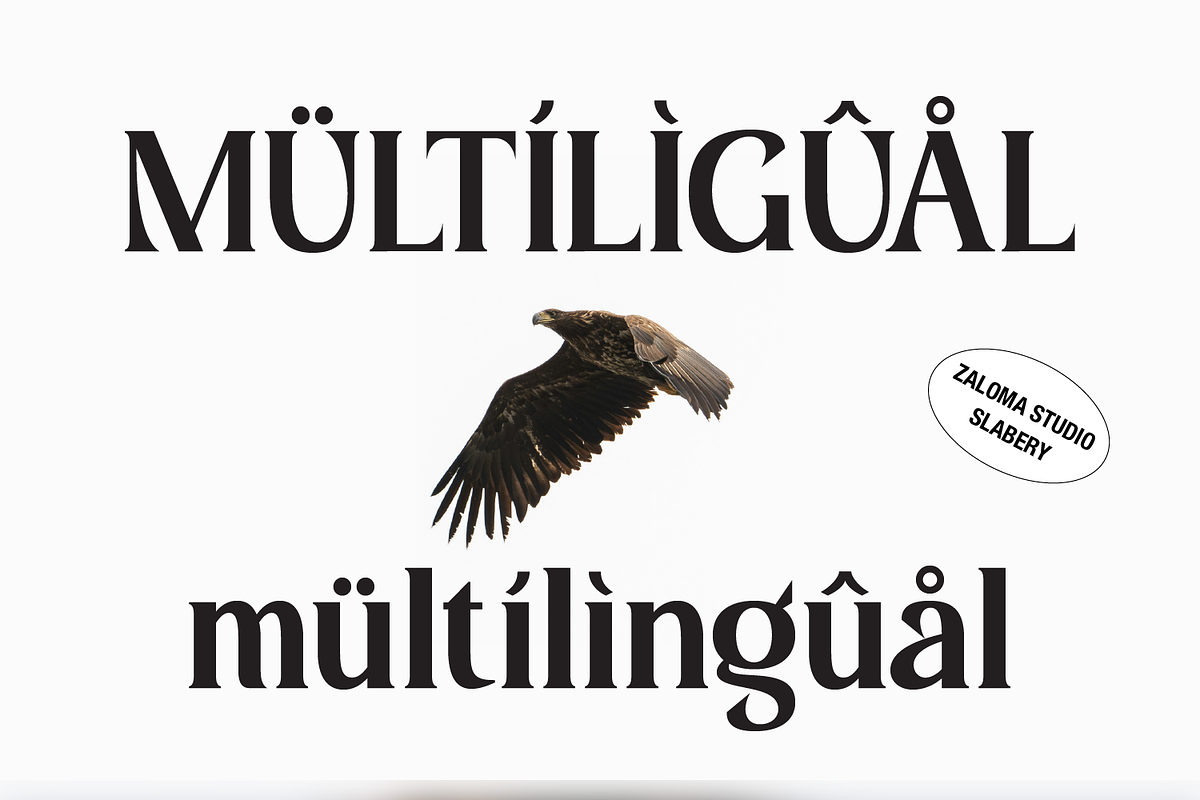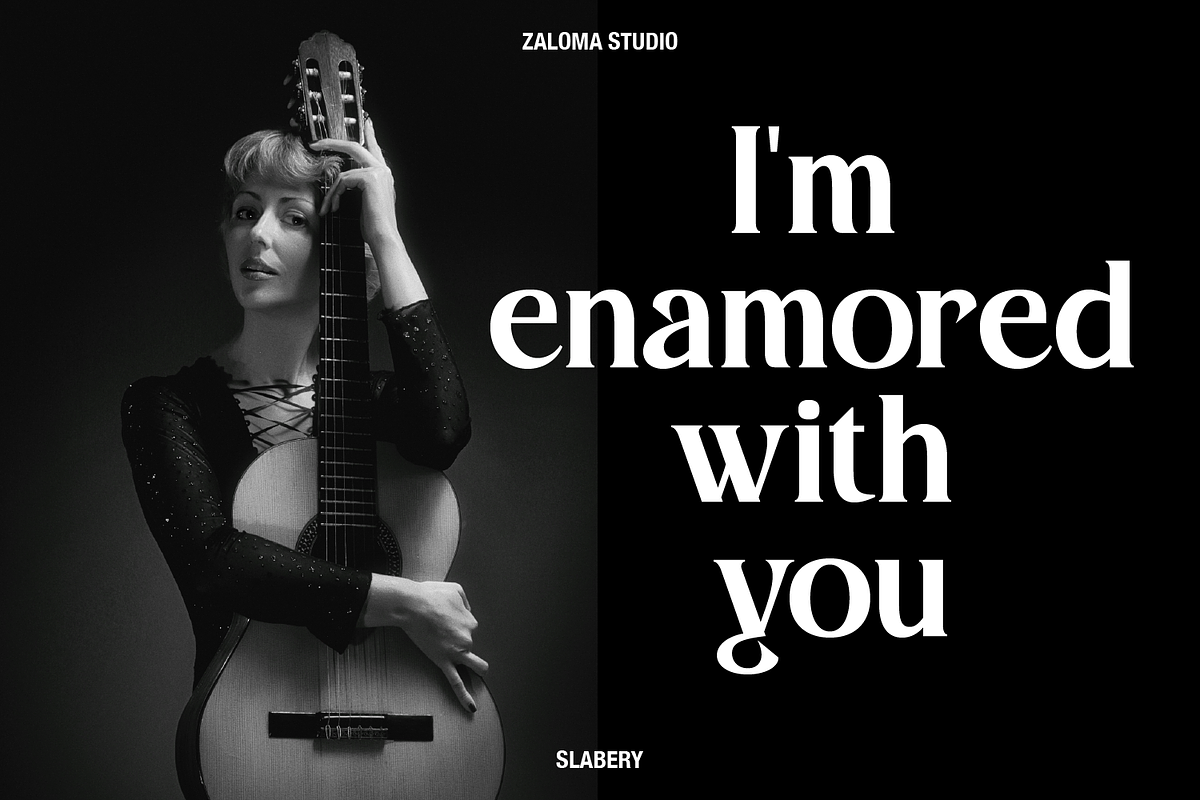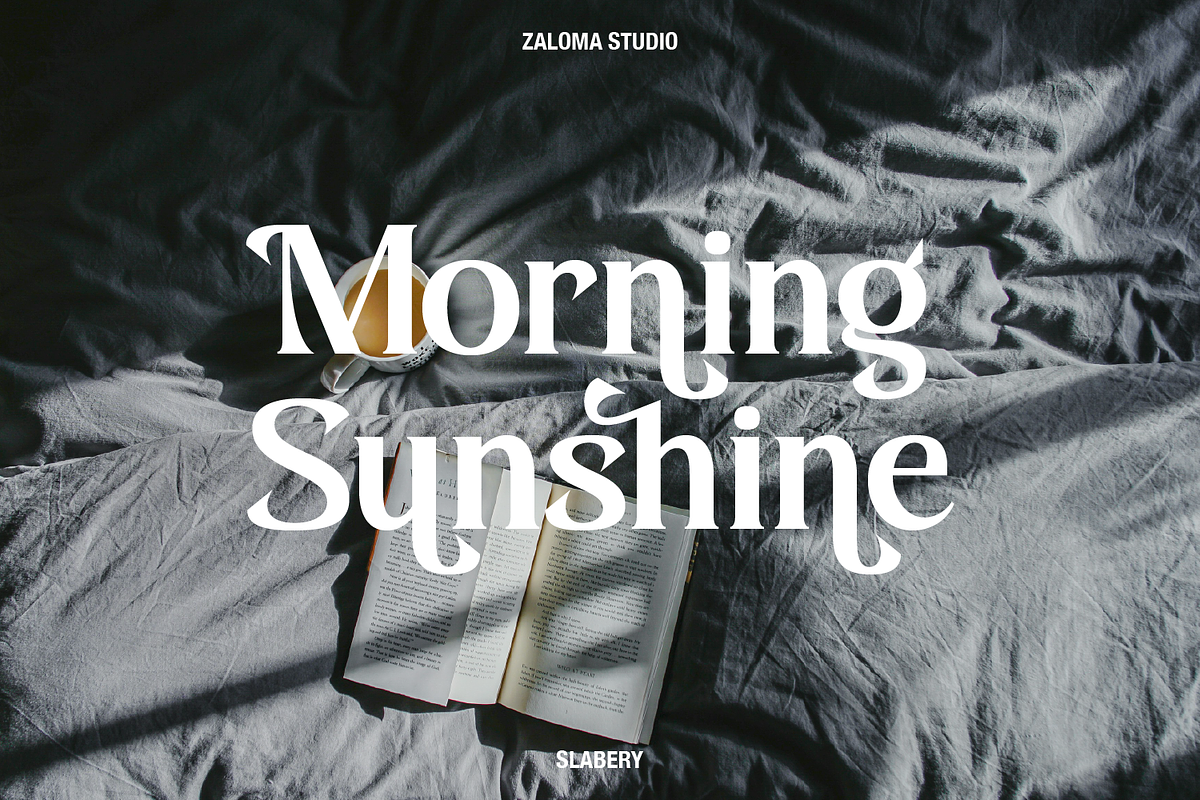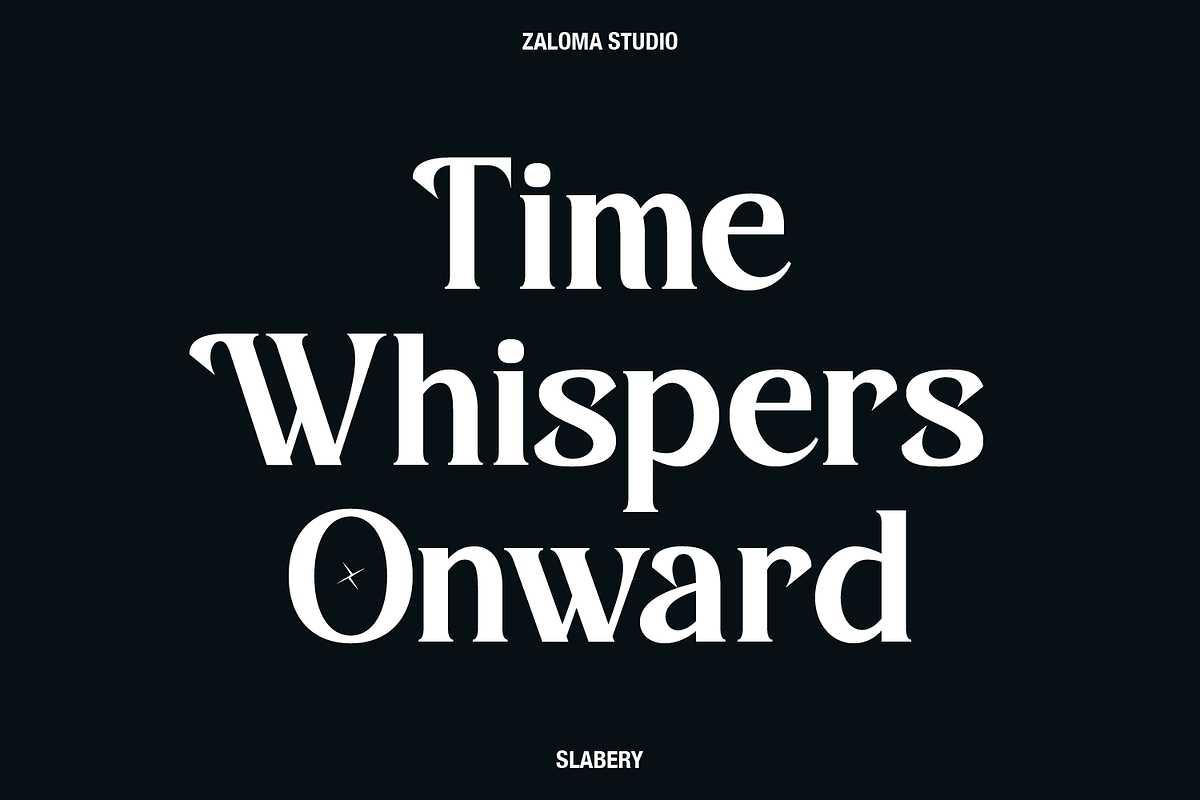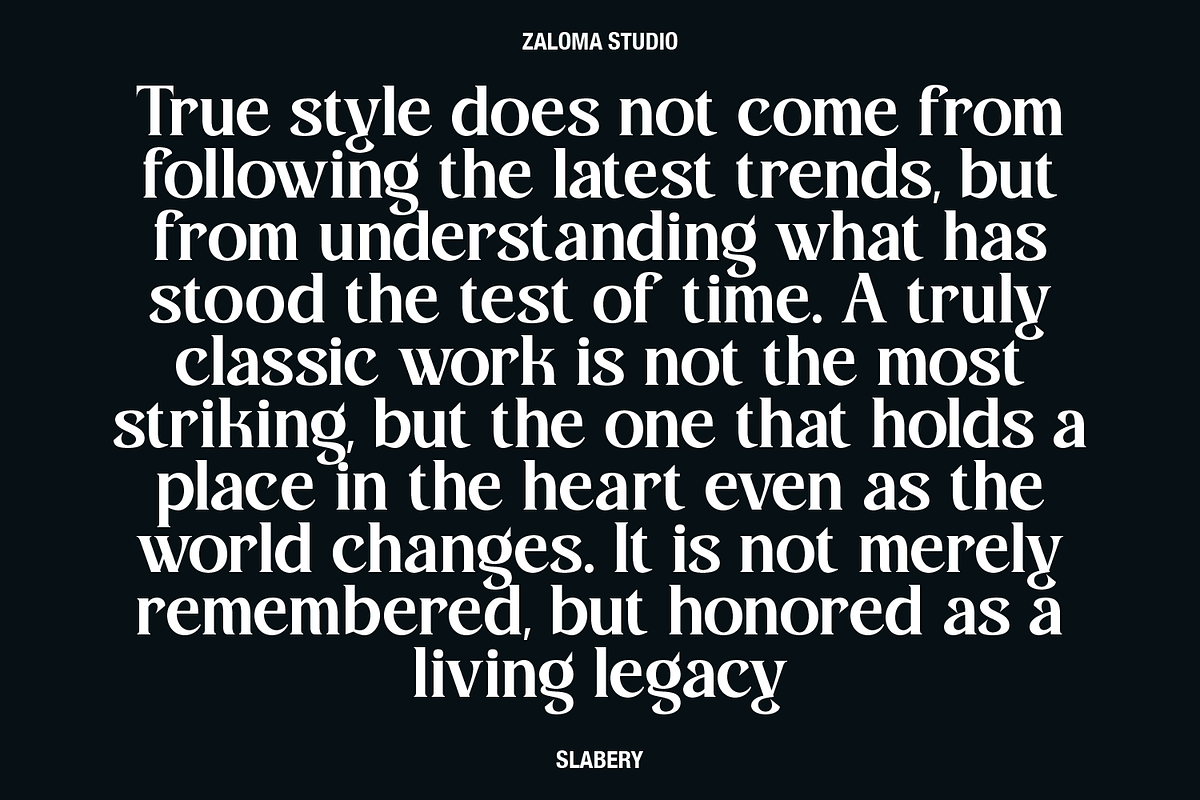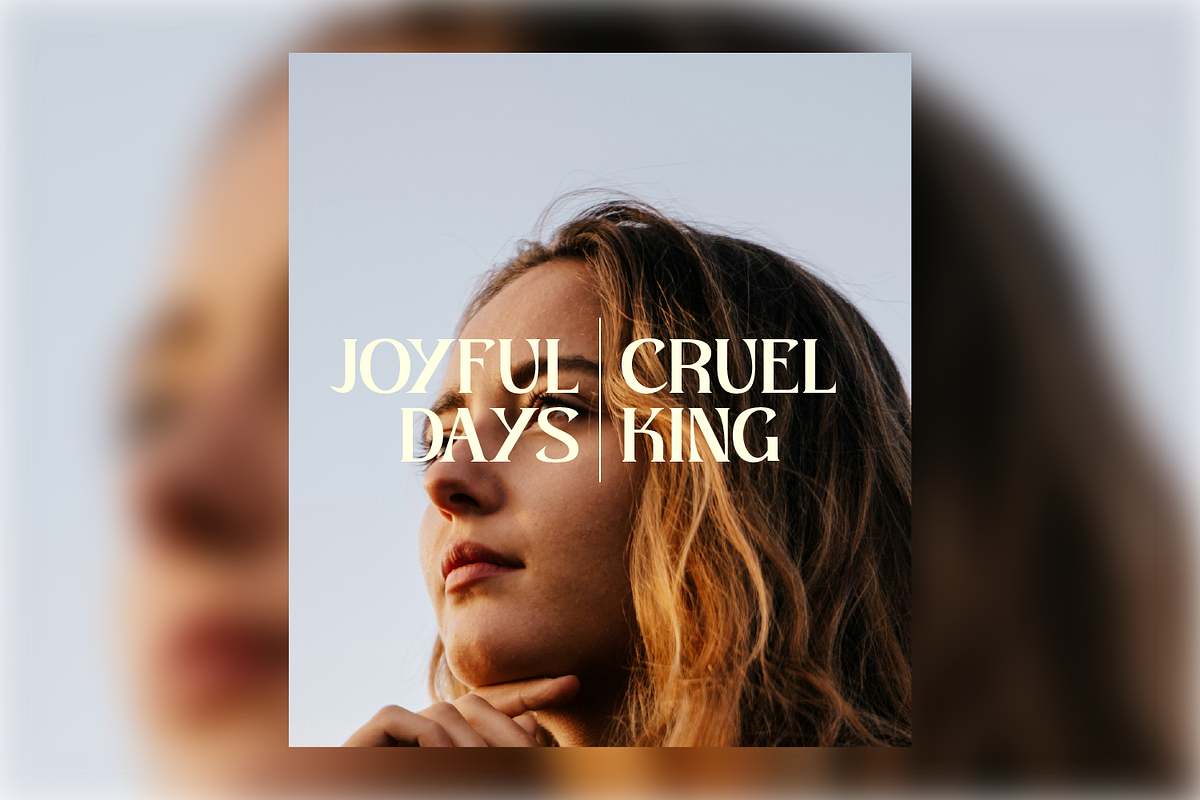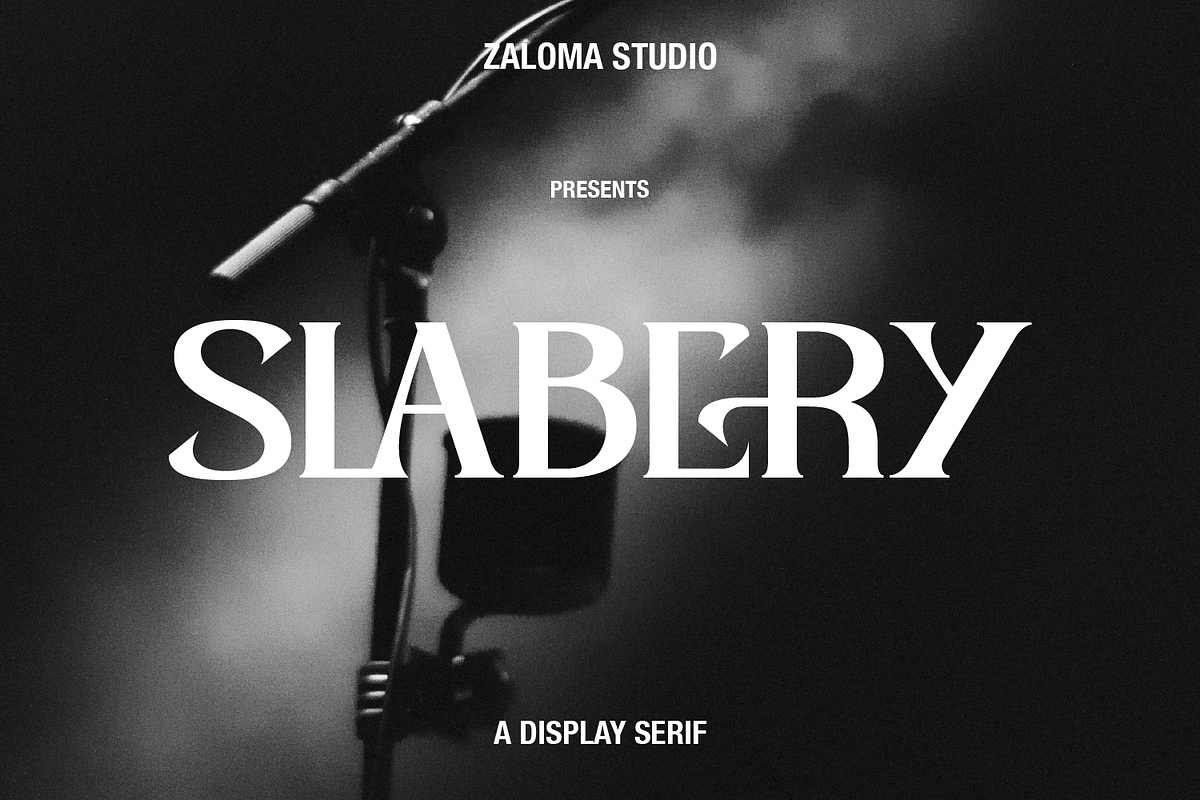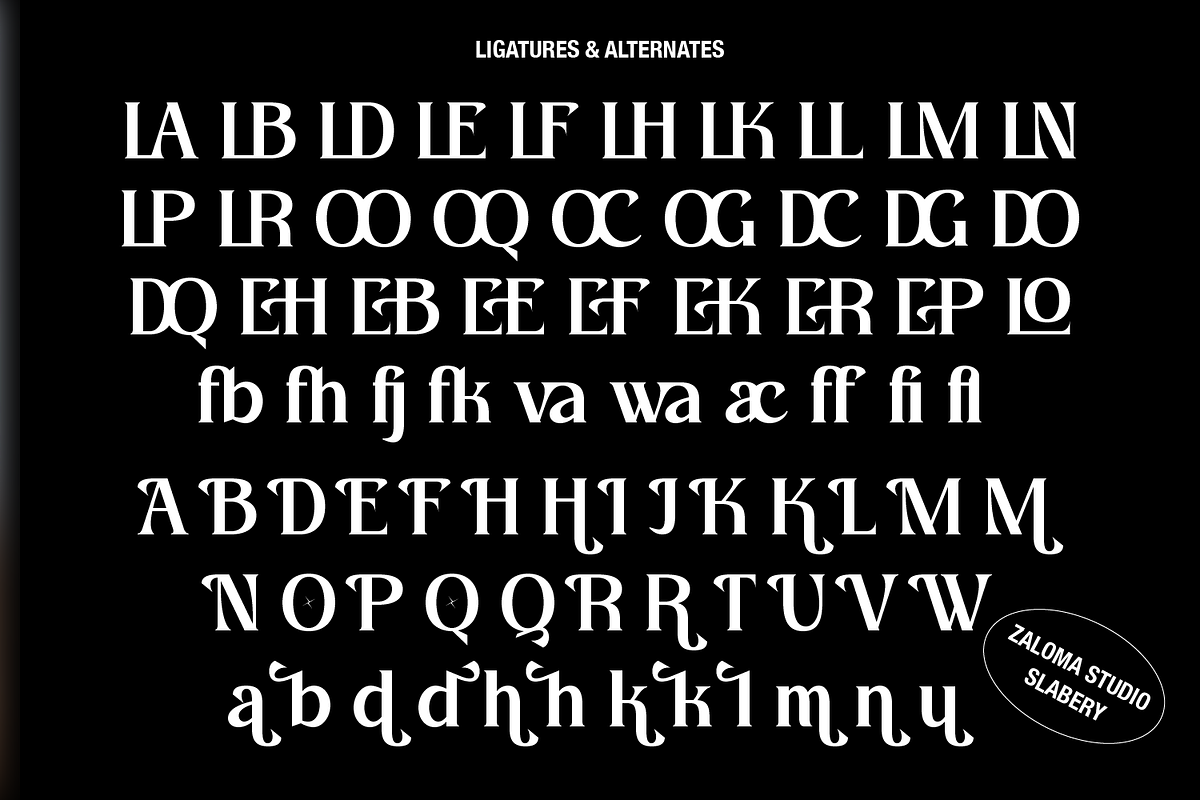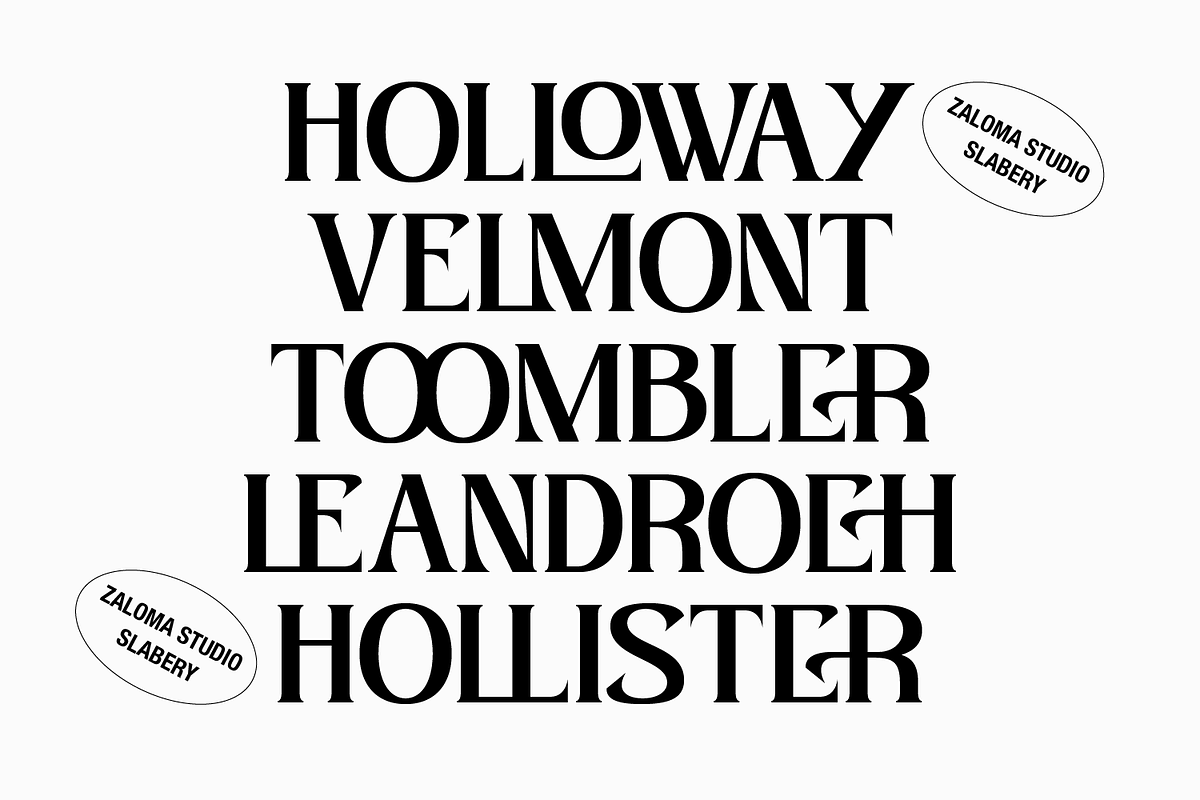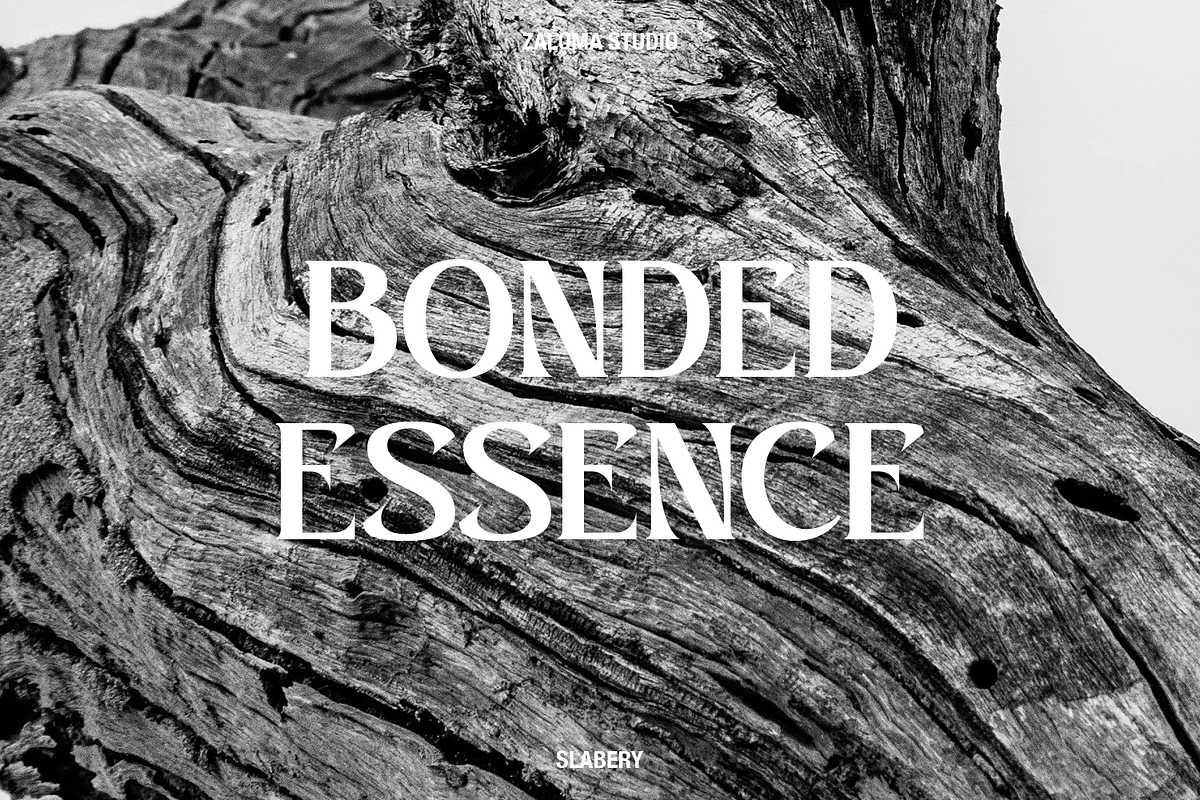
Slabery
This font is called Slabery, a display serif with a strong, elegant, and sophisticated character. Here’s an analysis:
Style & Characteristics Classic Serif: Features bold serif shapes reminiscent of typography from the 18th to early 20th century. High Contrast: The variation between thick and thin strokes gives it a luxurious and dramatic feel. Decorative Style: Some letters have unique elements, such as the curved leg on "R" or the distinctive terminal shape on "G." Elegant & Vintage: Inspired by classic designs yet still modern, making it ideal for branding, editorial work, and upscale designs.
Uppercase & Lowercase Letters Uppercase Letters: Strong and bold, perfect for titles or headlines. Lowercase Letters: More dynamic, with smooth curves on certain characters, balancing formality and artistry.
Usage Ideal for branding, editorial work, fashion, album covers, movie posters, and logos. Brings a classic feel while adapting well to modern designs.